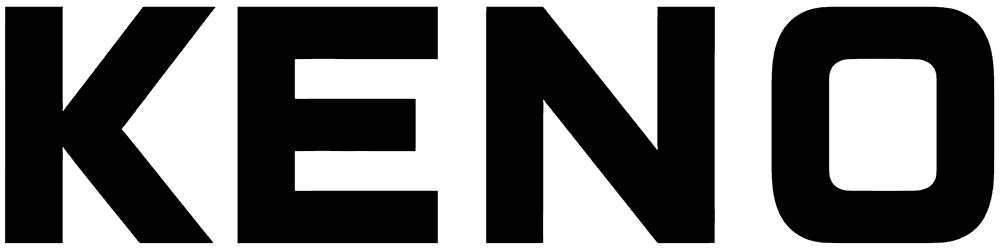
Keno Font
One of the best selections for any design with any title is always a sans serif font, and this option is one of them that you can set for varied themed projects. The bold and modest mood of letters will be matched with a…
One of the best selections for any design with any title is always a sans serif font, and this option is one of them that you can set for varied themed projects.
The bold and modest mood of letters will be matched with any taste, but this basic font doesn’t cover lowercase letters and most punctuation marks. Test the Keno font for your airline advertisement poster or the like and leave a lasting impact on your observers.